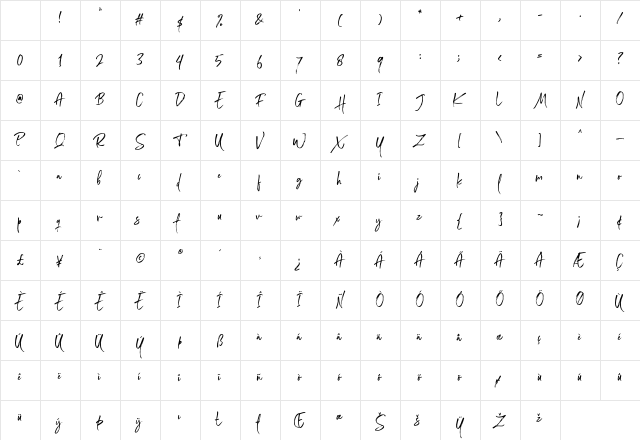
Wonderstory Alt is a composed and adaptable typeface that performs quietly and consistently across a wide range of design contexts.
Pro Tip: Use Wonderstory Alt in both headline and body roles to test its range before committing to a single application.